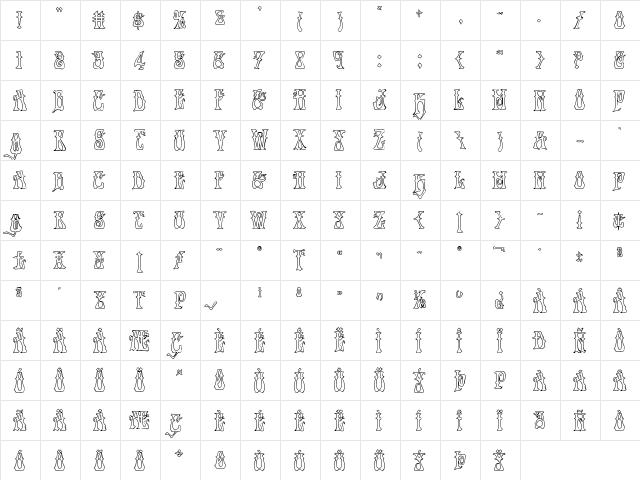
Instant Zen Outline Regular Font Preview
Instant Zen Outline Regular
Design Context for Instant Zen Outline Typeface
Instant Zen Outline is built around its visual character rather than neutral utility — its distinctive forms are designed to make an impression at display sizes.
Font Pairing: Pair with a clean neutral sans-serif for body copy to let Instant Zen Outline's character lead without overwhelming the composition.
Pro Tip: Treat Instant Zen Outline as the centrepiece of your typographic hierarchy. One strong heading set in a decorative face can carry an entire layout.